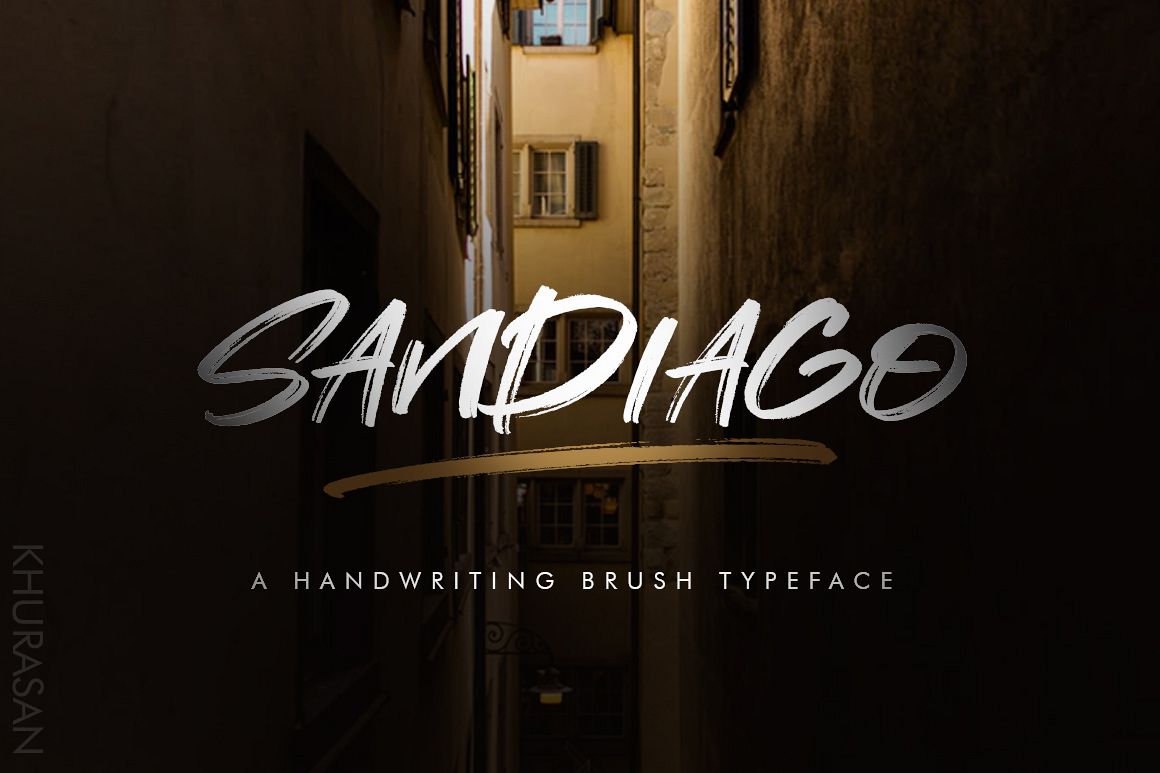
Sandiago is new handwritten font brush, elegant and vintage feel character set. The Sandiago font only set capital letters, as well as multi-lingual support, ,numerals, punctuation & swashes.
Features:- Uppercase
- Numerals & Punctuations
- Swash